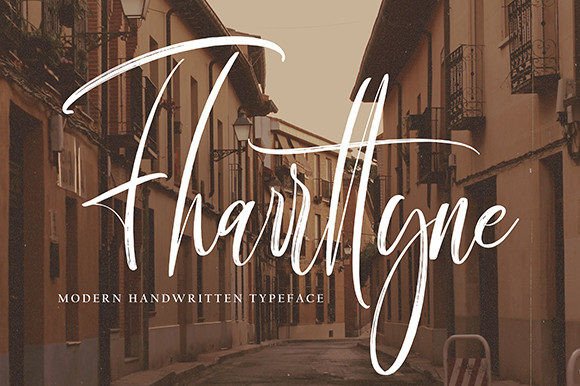
Prepare to be mesmerized by Fharrttyne Font, a magical creation that will transform your digital designs into captivating works of art. This enchanting script font, meticulously crafted by Pineungtype & Missinklab, embodies elegance and creativity, making it the perfect choice for a wide range of projects.
With its captivating curves and swashes, Fharrttyne Font adds a touch of sophistication and charm to any design. Its versatility knows no bounds, making it ideal for Instagram posts, calligraphy scripts, DIY projects, and any creative endeavor that demands a touch of magic.
Imagine your Instagram feed adorned with stunning visuals, each post elevated by the allure of Fharrttyne Font. Its enchanting characters will draw your audience's attention, inviting them to immerse themselves in your captivating content.
For those who cherish the art of calligraphy, Fharrttyne Font offers an unparalleled experience. Its smooth flow and graceful strokes make it a delight to write with, transforming your words into delicate works of art.
And for the DIY enthusiasts, Fharrttyne Font opens up a world of possibilities. Create personalized invitations, greeting cards, and other paper goods that exude charm and individuality. Whether you're a professional designer or simply someone who appreciates the beauty of typography, Fharrttyne Font is the perfect addition to your creative toolkit.